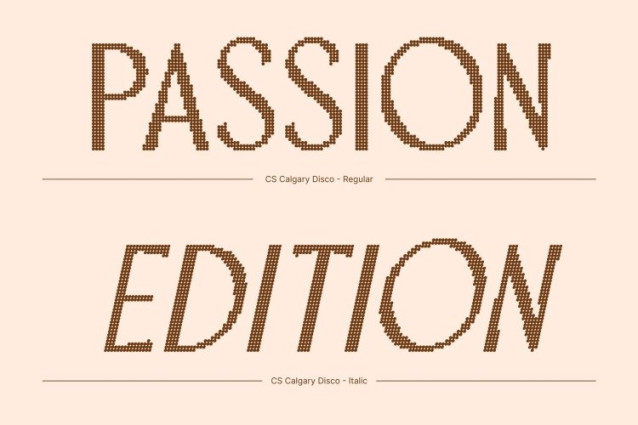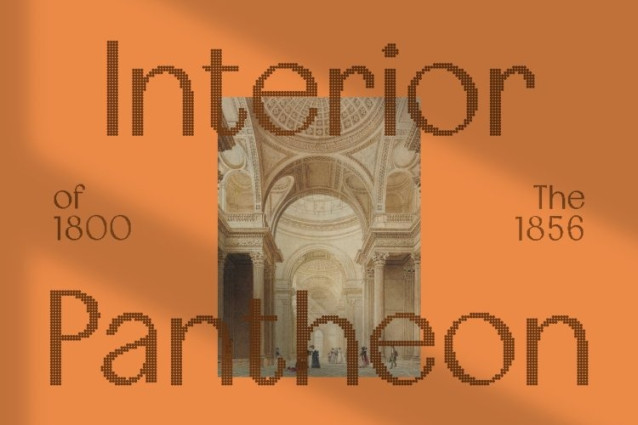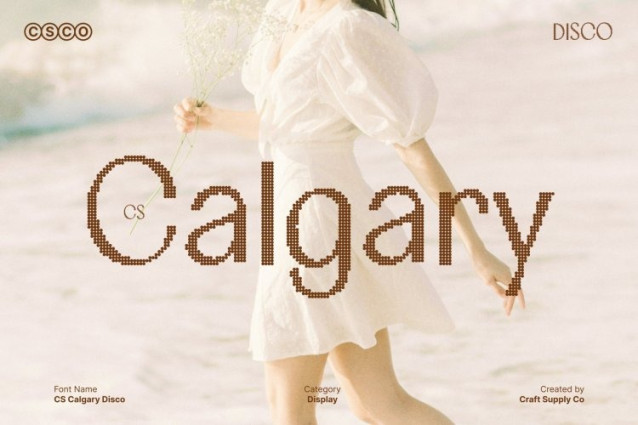
CS Calgary Disco Font
CS Calgary Disco Font This is a clean, modern sans serif font that fuses refined minimalism with a glamorous disco-inspired spirit. Built on an elegant and structured foundation, this typeface maintains a polished, high-end appearance while introducing festive energy inspired by dance floors, flashing lights, and retro fashion.
Minimalist Structure with Classy, Festive Appeal
At its core, this font embraces simplicity. Clean lines, consistent stroke weights, and balanced spacing create a calm and uncluttered visual tone. The added disco influence brings subtle sparkle and rhythm, elevating the minimalist design with a sense of celebration. This balance allows the font to remain elegant while feeling expressive, vibrant, and visually engaging.
Modern Clarity with Energetic Expression
This font delivers excellent legibility across both digital and print applications. Its modern sans serif construction ensures clarity and professionalism, while its festive nuance adds character and excitement. This combination makes the font ideal for designs that want to communicate trust, quality, and sophistication without losing a sense of fun and energy.
Perfect for Luxury Branding, Events, and Stylish Displays
Designed for high-end yet expressive use, this font is perfect for luxury branding, fashion campaigns, premium packaging, event visuals, and modern websites. Whether used in logos, headlines, or promotional graphics, it enhances visual identity with minimalist elegance, glamorous flair, and a lively disco-inspired atmosphere.